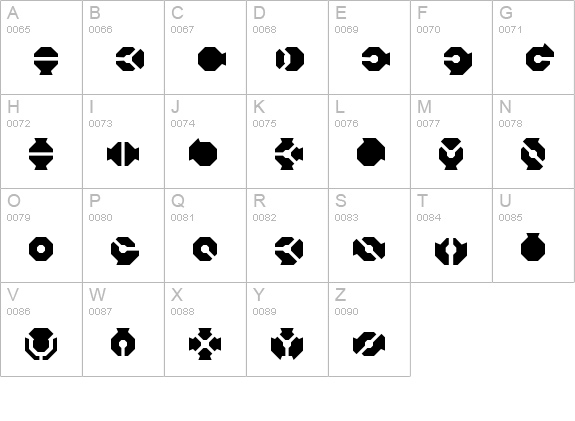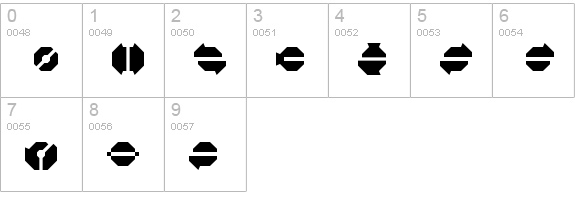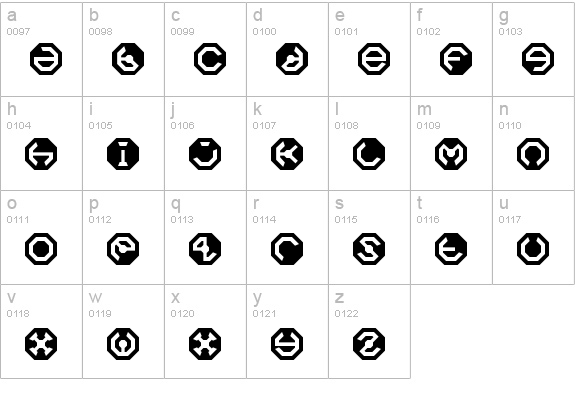
BlackFlag font is a striking and bold typeface that exudes strength and attitude. With its sharp edges and powerful presence, this font is perfect for making a statement in your designs. Whether you're working on a poster, logo, or any other creative project, BlackFlag will make sure your message is heard loud and clear. The best part? BlackFlag font is completely free to download at FontsMarket.com. So go ahead and unleash your creativity with this eye-catching and impactful typeface. Stand out from the crowd and leave a lasting impression with BlackFlag font.